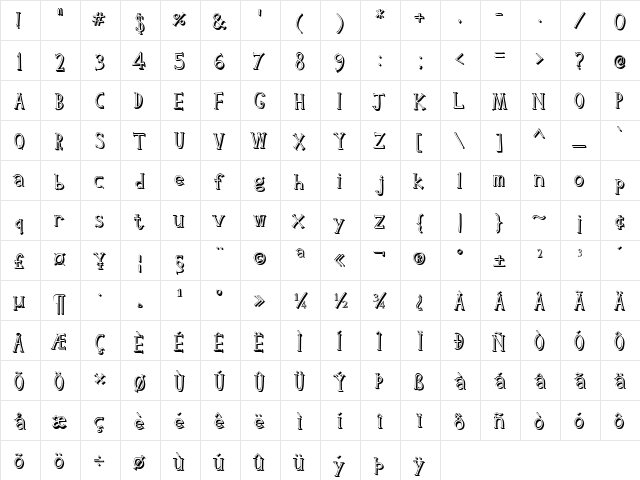
Clink Outlined Regular
| Foundry | Pointy Design |
| Designer | James Beardmore |
Design Context for Clink Outlined Typeface
Clink Outlined brings ornamental detail and strong personality to headlines and identities, where visual impact matters more than quiet functionality.
Font Pairing: Pair with a clean neutral sans-serif for body copy to let Clink Outlined's character lead without overwhelming the composition.
Pro Tip: Use Clink Outlined exclusively at display sizes — it was designed to be seen, not read at length. Let a neutral companion handle body copy.